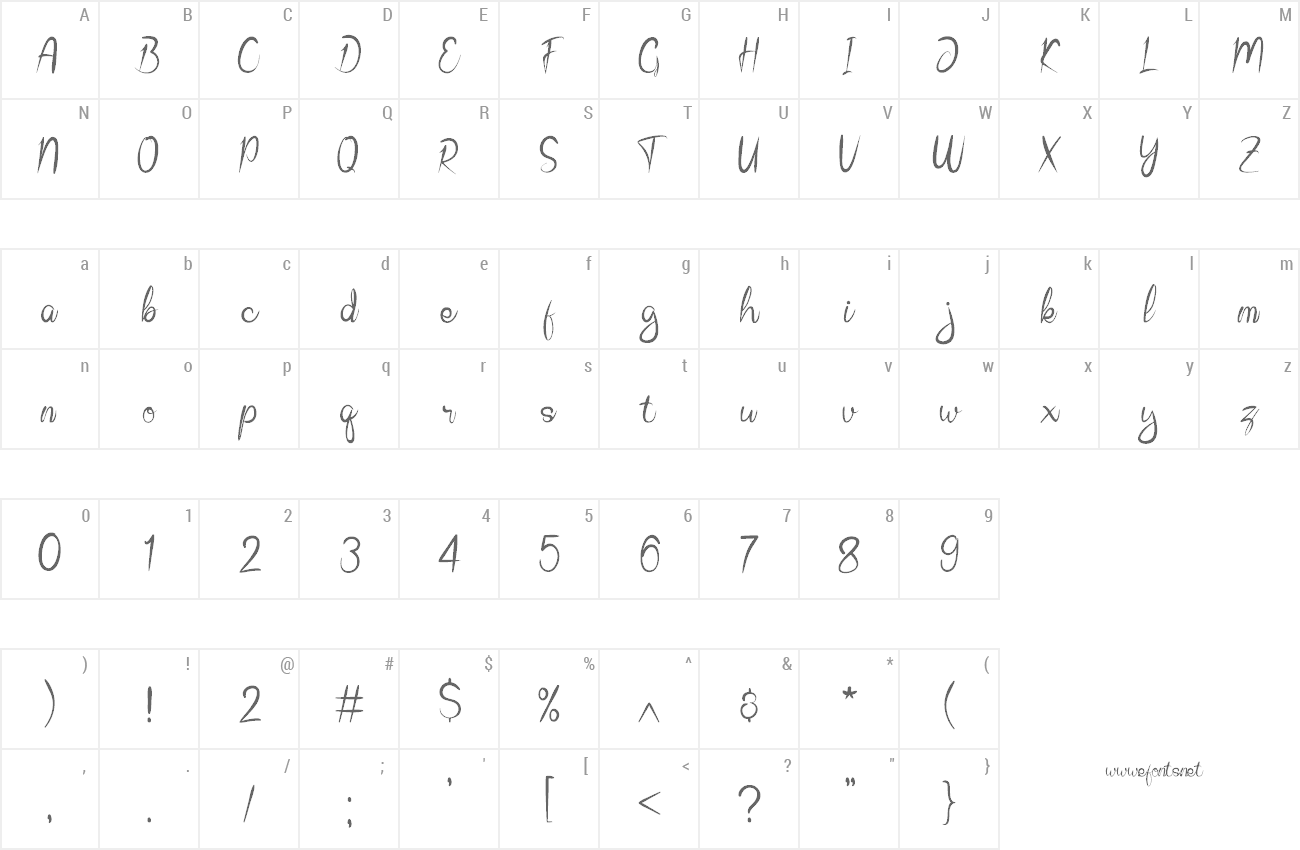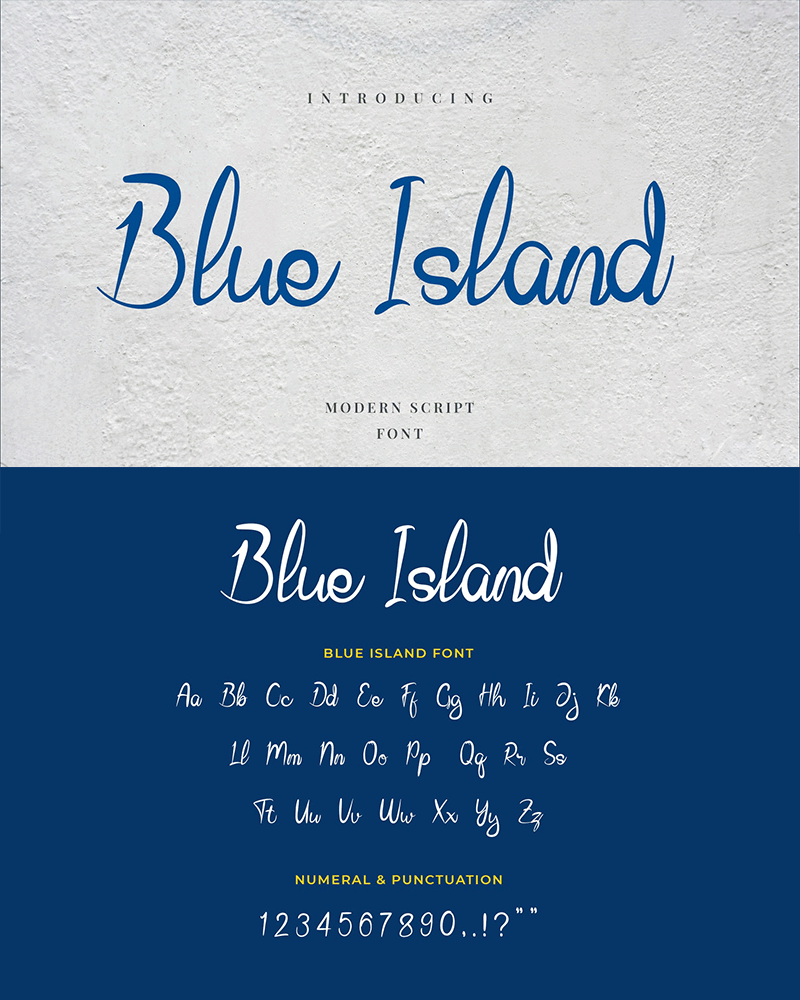
Blue Island Modern Script is a more modern type of script font. With the unique OpenType in it and the ligature will add aesthetic value to your design product. Having a distinctive curved handwriting design will make this font suitable for various design projects, such as invitations, greeting cards, posters, name cards, quotes, blog headers, branding, logo, fashion, apparel, letter, stationery and more. You can buy full license from our store for more our fonts: https://uicreative.net/products/fonts-blue-island-modern-script |